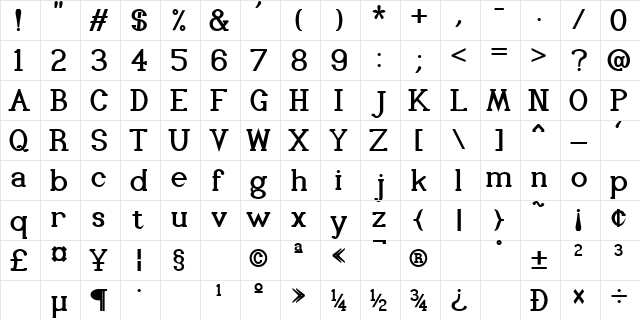
IzzardSerif Bold
Design Context for IzzardSerif Typeface
IzzardSerif carries the refined structure of traditional serif typography, with bracketed terminals and considered proportions that communicate credibility and craft. The heavy weight commands attention and anchors typographic hierarchies.